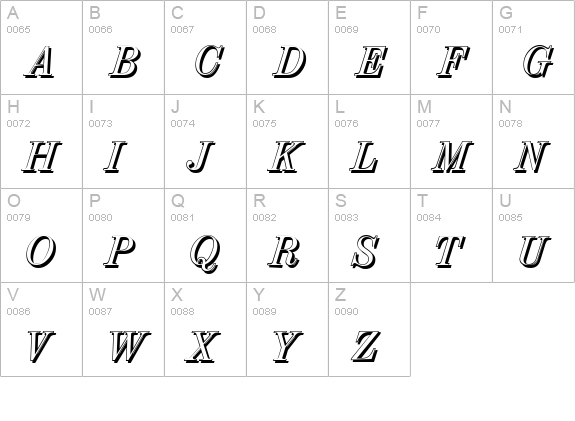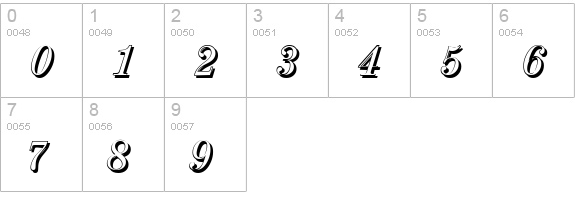
ValenciaShadow-Italic is a distinctive, italic variant in the ValenciaShadow typeface family \xE2\x80\x94 well suited to design and typography projects.
ValenciaShadow-Italic is a stunning and elegant font that exudes sophistication and charm. Its unique italic style adds a touch of flair to any design project, making it perfect for branding, invitations, and more. The delicate shadow effect creates a sense of depth and dimension, adding a modern twist to this classic font. Best of all, ValenciaShadow-Italic is available for free download at FontsMarket.com. This means you can easily access this beautiful font and incorporate it into your creative projects without any cost. Don't miss out on the opportunity to enhance your designs with the timeless beauty of ValenciaShadow-Italic. Download it today and elevate your creations to new heights!